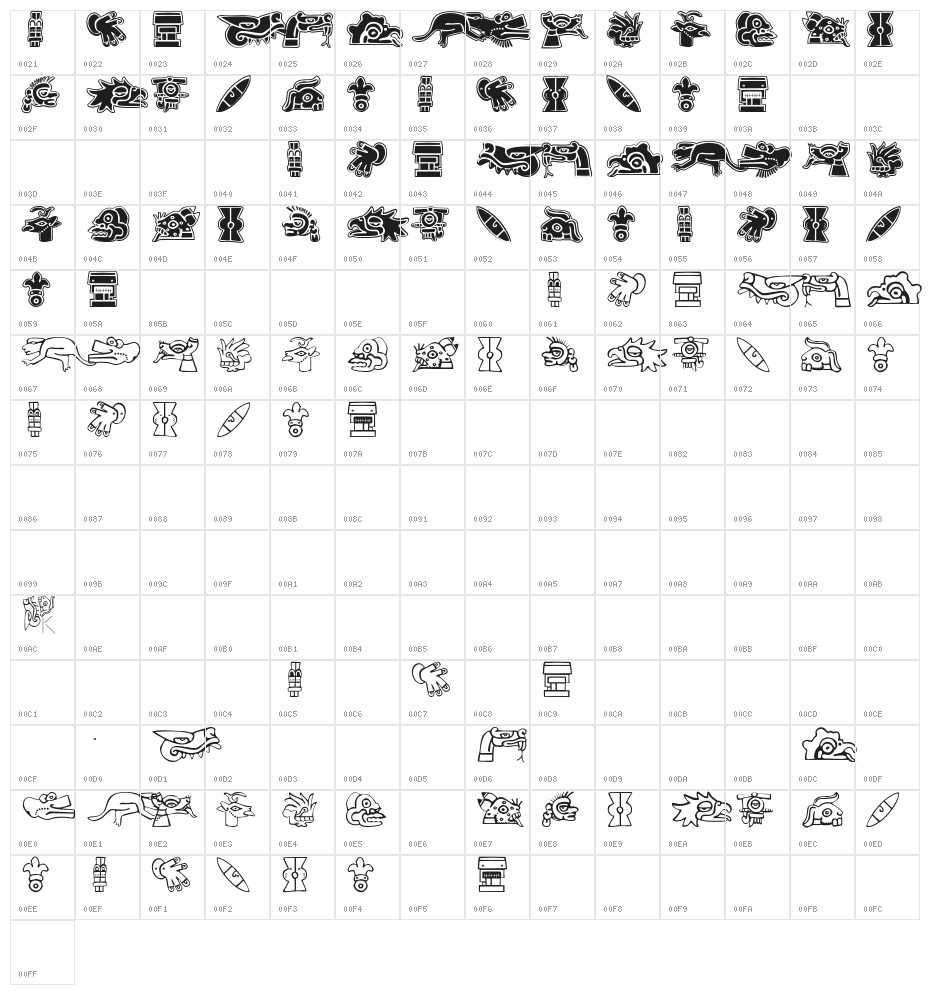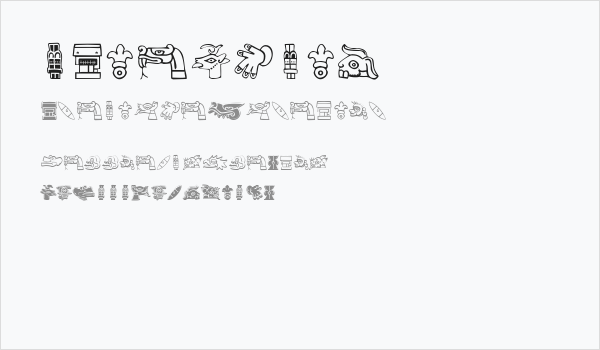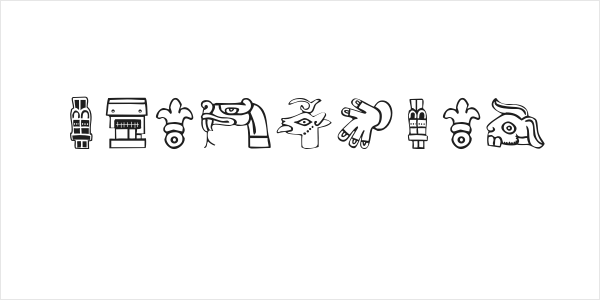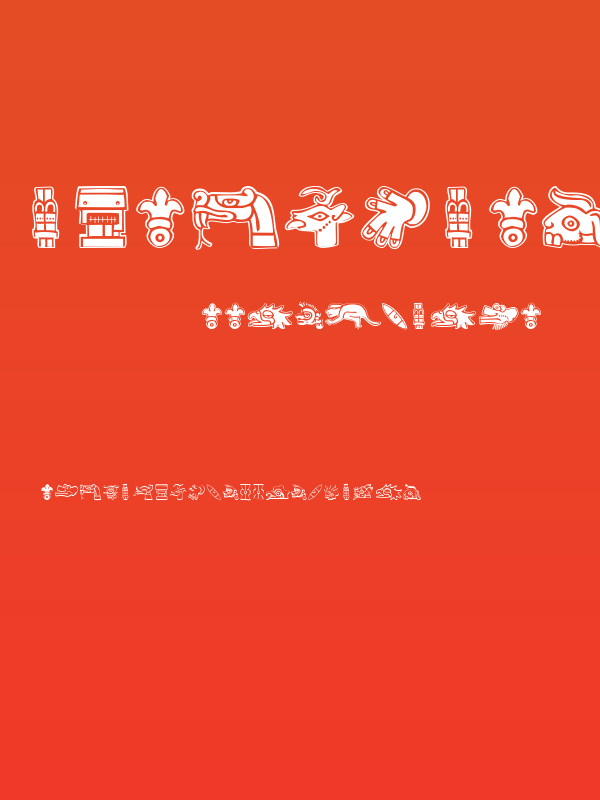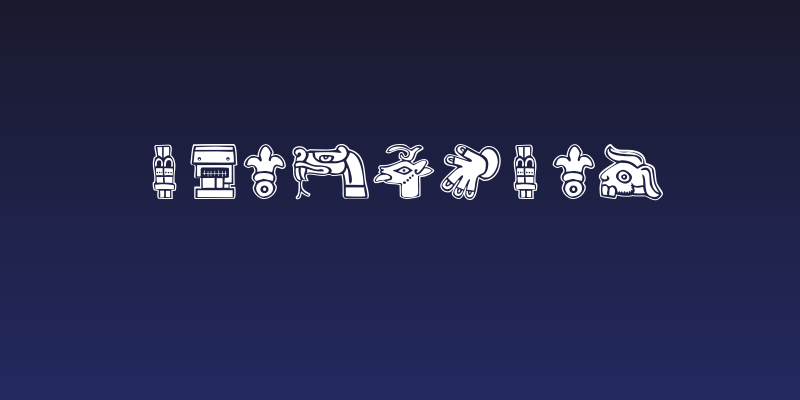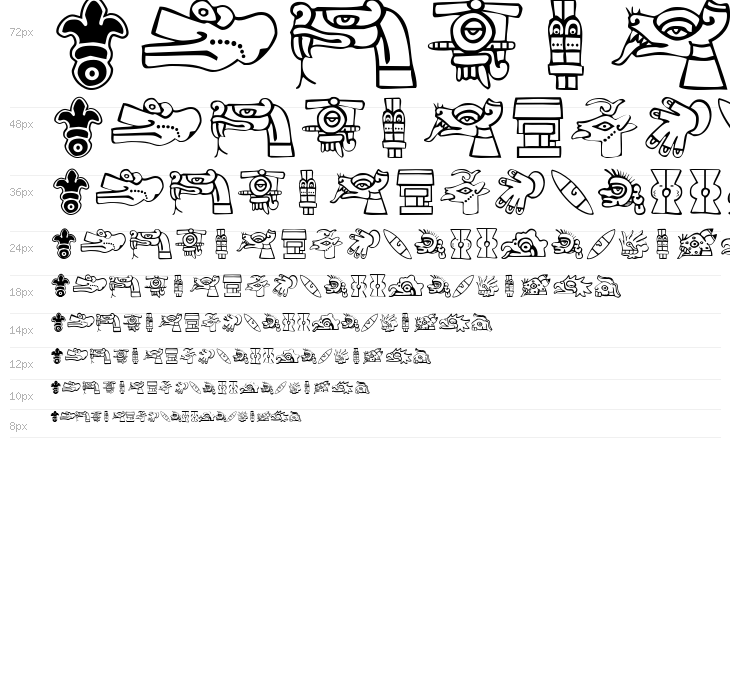
Aztekbats Font
Aztekbats Description
This font is a decorative and thematic set inspired by Aztec motifs, featuring intricate and stylized glyphs that resemble ancient symbols and figures. Each character is a unique representation, incorporating elements such as animals, mythical creatures, and geometric shapes. The design is bold and striking, with a strong emphasis on cultural aesthetics. The characters are highly detailed, making them ideal for projects that require a distinct and artistic touch. The font's complexity and ornamental nature make it suitable for creative and thematic applications.
| Use Case | Logos, Posters, Themed Events |
| Proposed Projects | Ideal for cultural projects, themed events, artistic posters, and creative branding. |